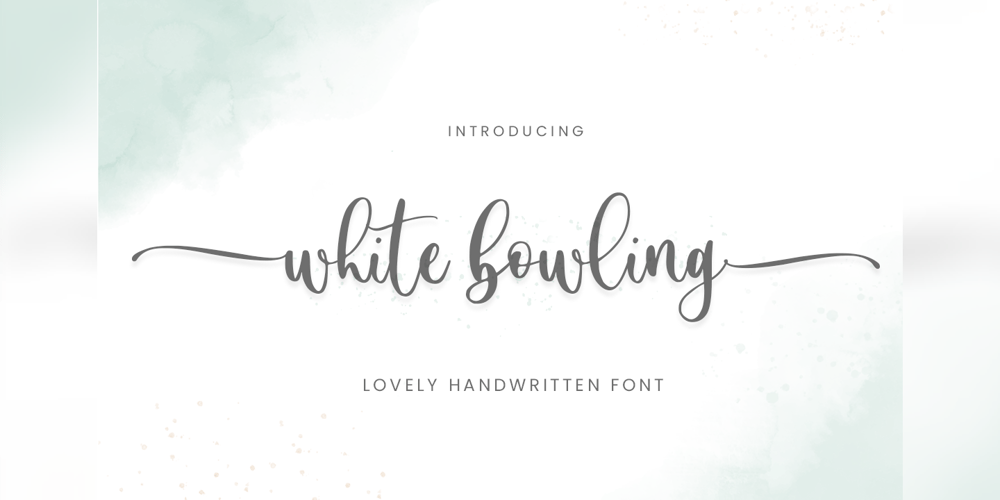
White Bowling Font Family was designed by Muhamad Yusron Billah and published by Sronstudio. White Bowling contains 1 styles and family package options. White Bowling is a beautiful calligraphy font perfect for crafting, branding, invitation, stationery, wedding designs, social media posts, advertisements, product packaging, product designs, label, photography, watermark, special events or anything.White Bowling comes with full set of uppercase and lowercase letters, swash alternates, ligatures,multilingual symbols, numerals and punctuation.